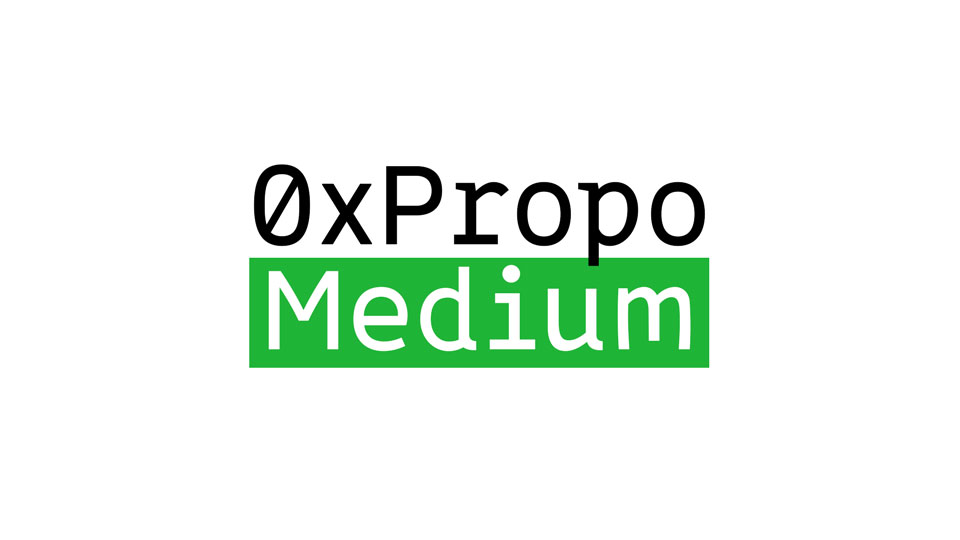
Download 0xPropo font, a typeface that retains the atmosphere and beauty of a monospace font and solves the above difficulties in using monospace fonts for writing natural language.